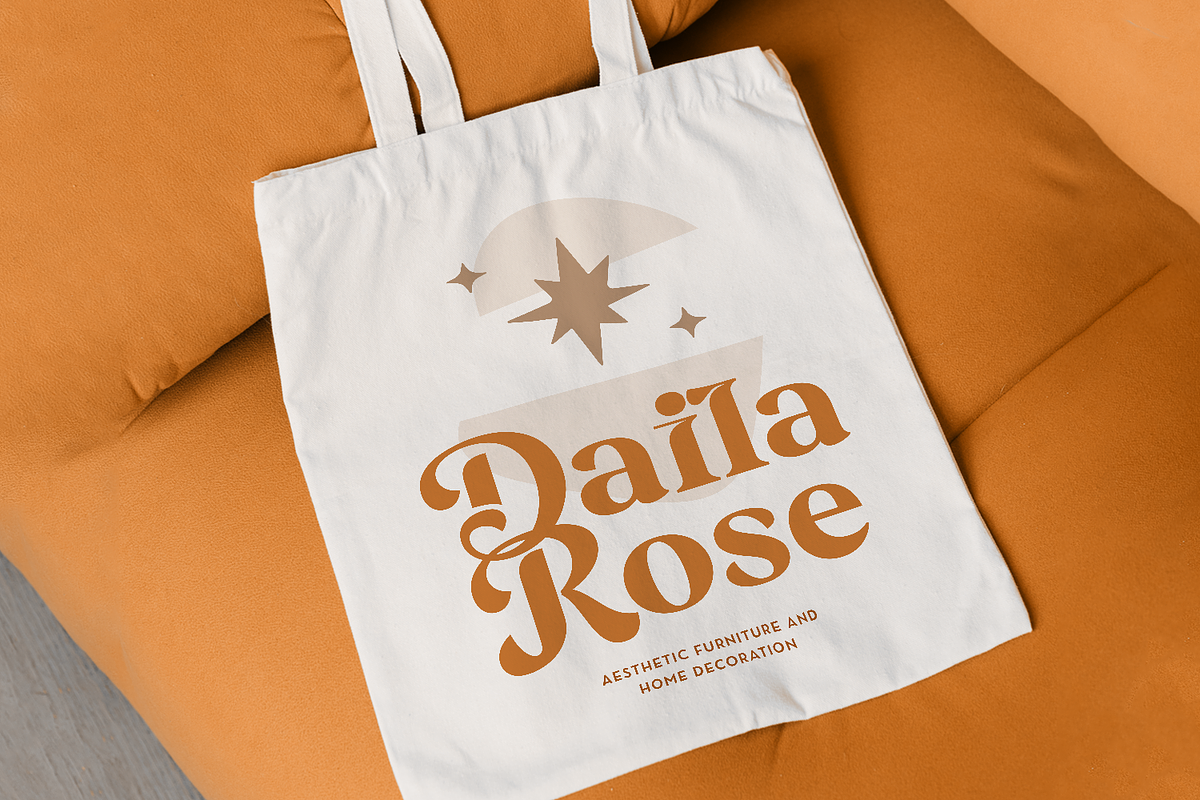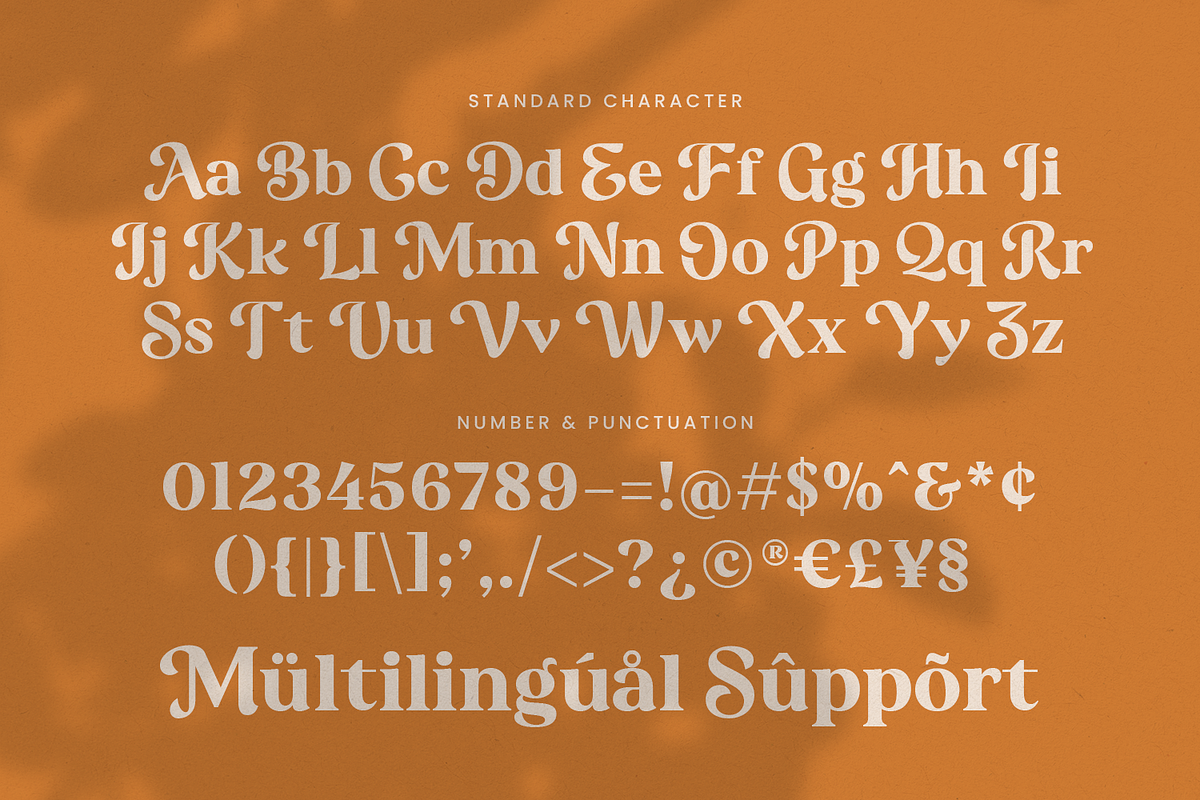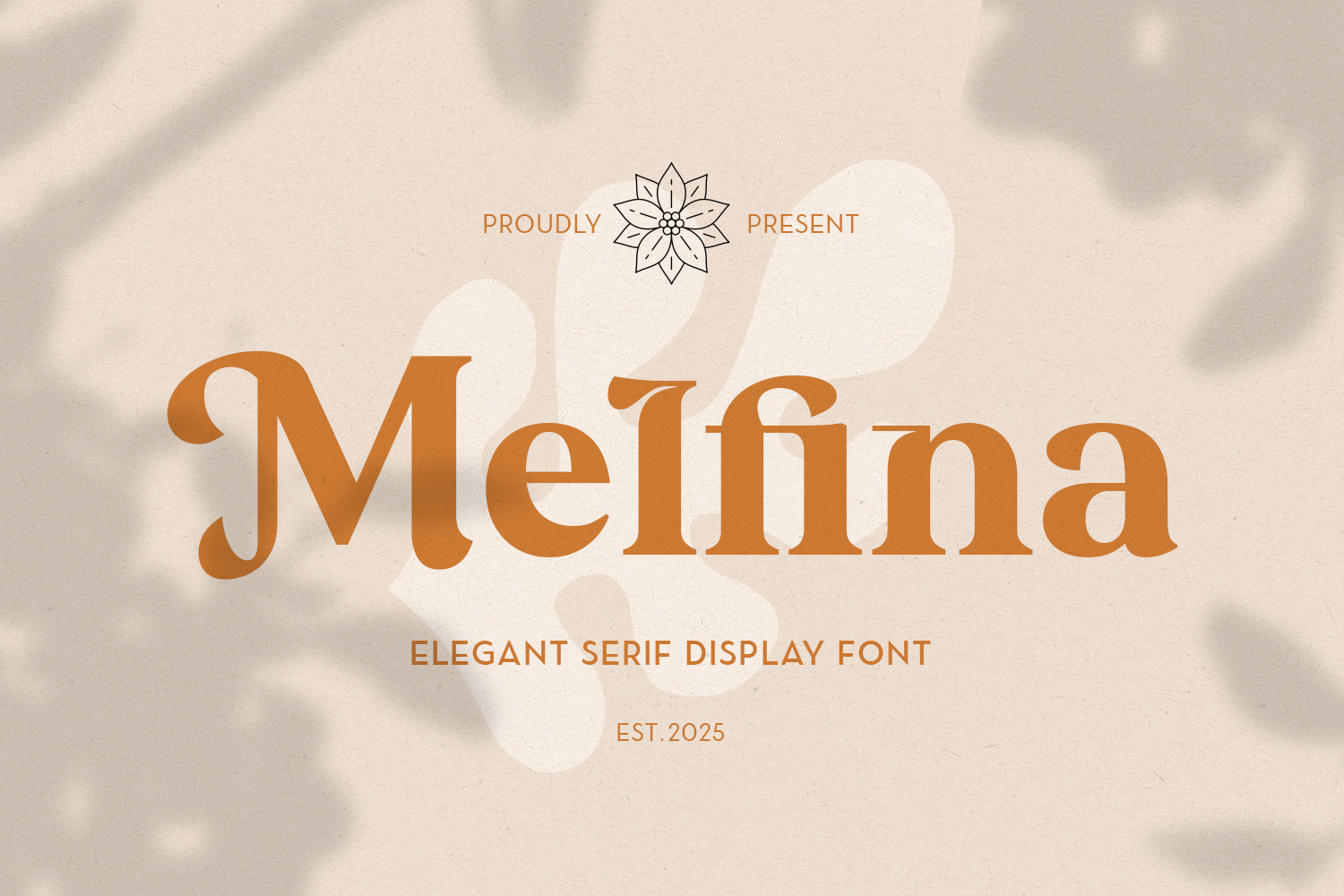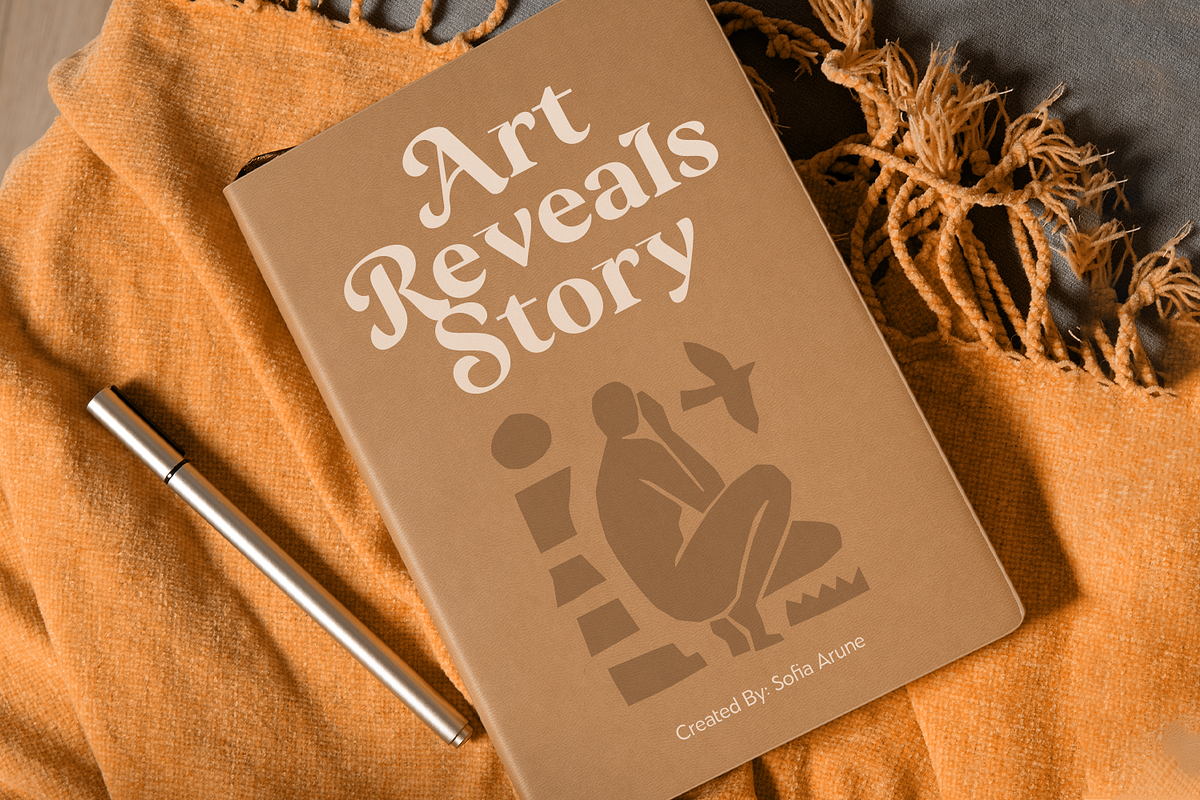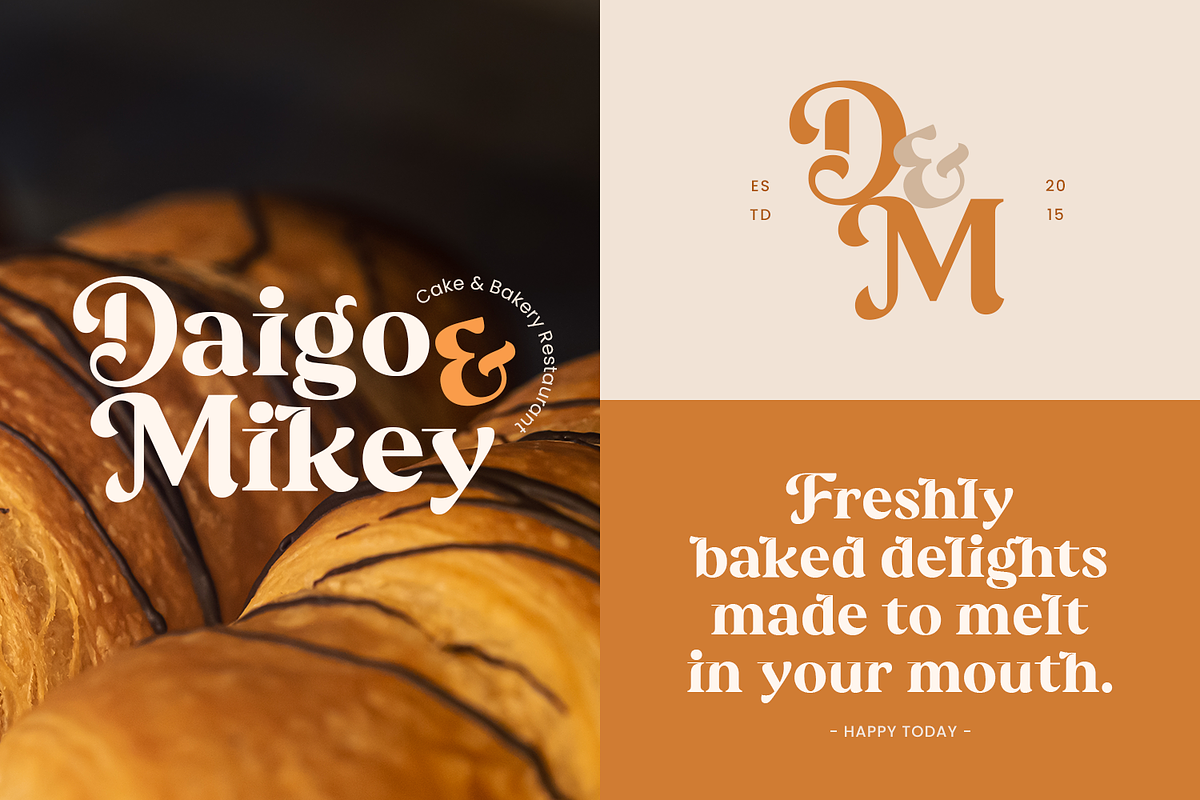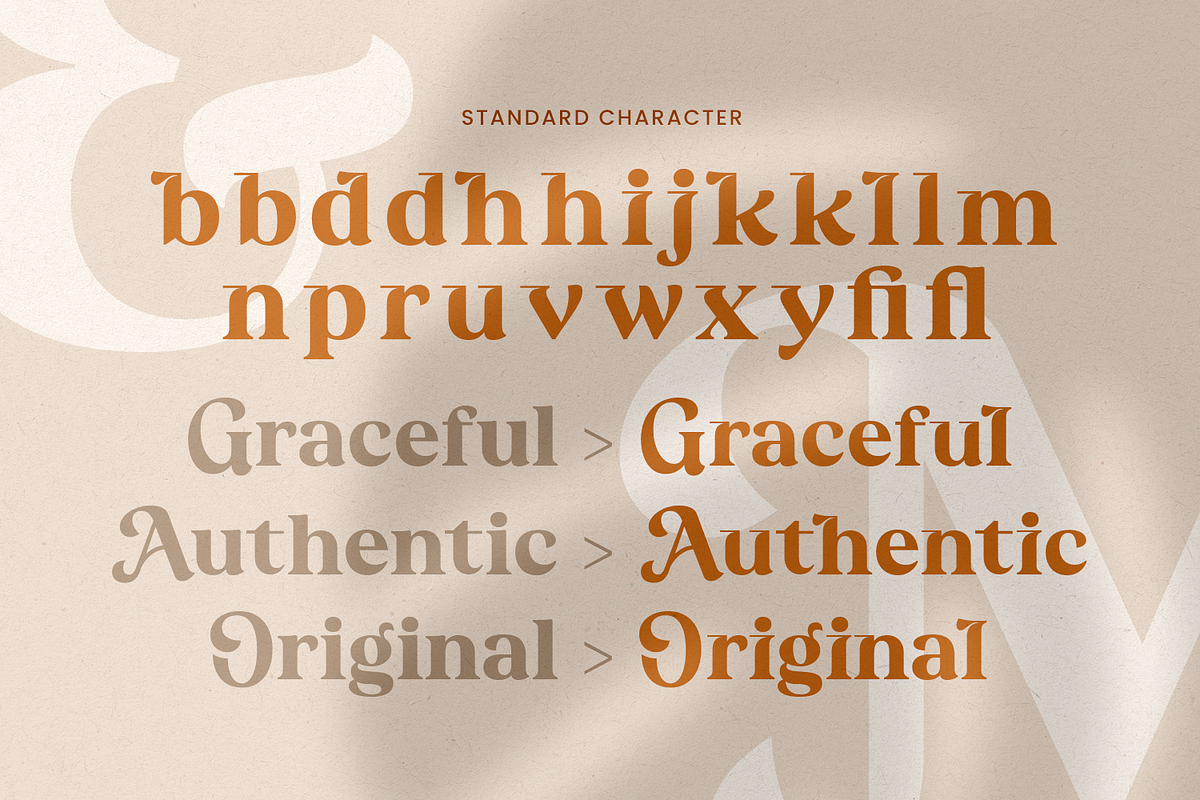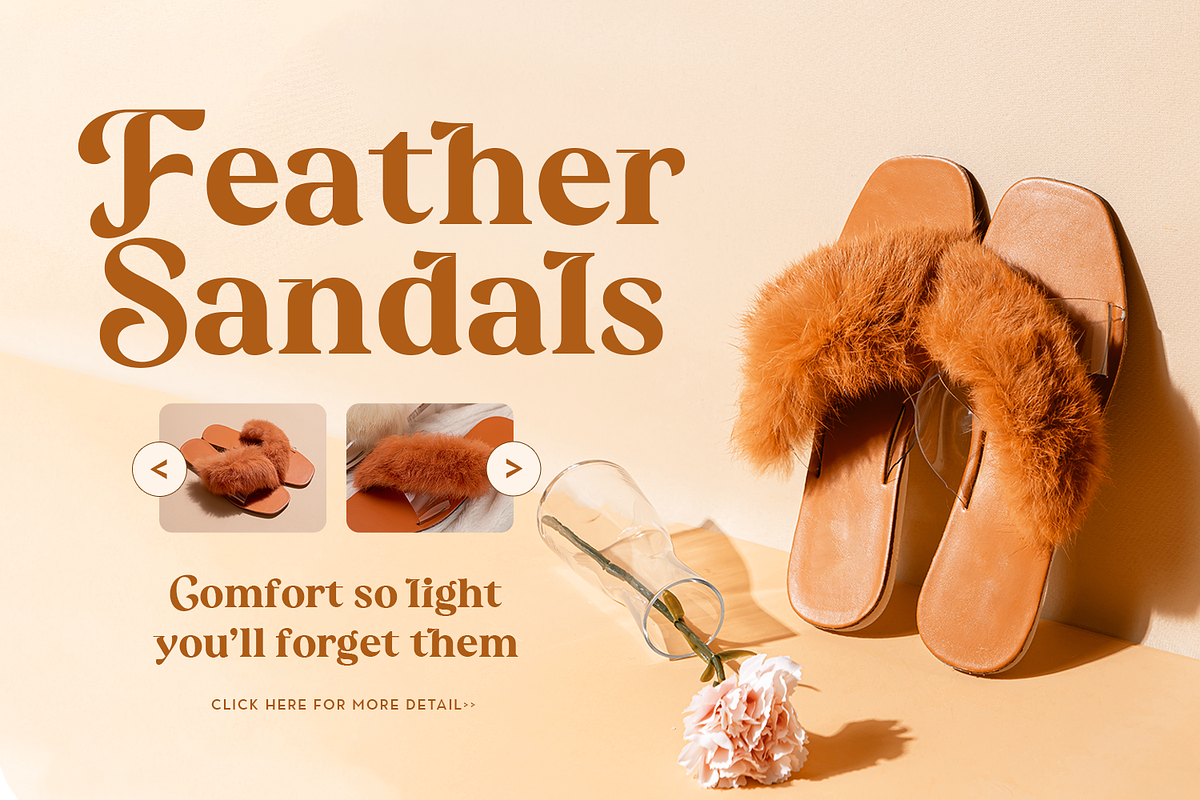
Melfina - Creative Agency Font
Melfina is a modern serif font crafted to embody creativity, confidence, and elegance. Its refined structure and graceful curves make it a perfect choice for contemporary branding and professional design. Combining timeless sophistication with a clean, creative edge, Melfina brings balance between classic beauty and modern minimalism.
Ideal for creative agencies, studios, and luxury brands, Melfina enhances visual identity with its distinctive character and versatility. From logo design and brand identity to magazine headlines and marketing materials, it delivers a refined impression that communicates trust and creativity.
The strong yet delicate letterforms of Melfina create a professional presence while maintaining a stylish and approachable feel. Its thoughtful design makes it suitable for both digital and print applications—ensuring clarity, harmony, and impact across all media.
With multiple stylistic alternates and wide language support, Melfina offers flexibility for any design direction. Whether you aim for elegant editorial layouts, sleek presentations, or bold brand visuals, this font adapts effortlessly to your vision.
Elevate your creative agency projects with Melfina – Serif Font and express modern sophistication through timeless design.
- Standard & Multilingual glyphs.
- Alternate glyphs & Unique Ligature.
- Fonts include multilingual support for; Afrikaans, Danish, Dutch, French, German, Indonesian, Irish, Italian, Norwegian, Portuguese, Scottish, Spanish, Swedish, Swiss etc.